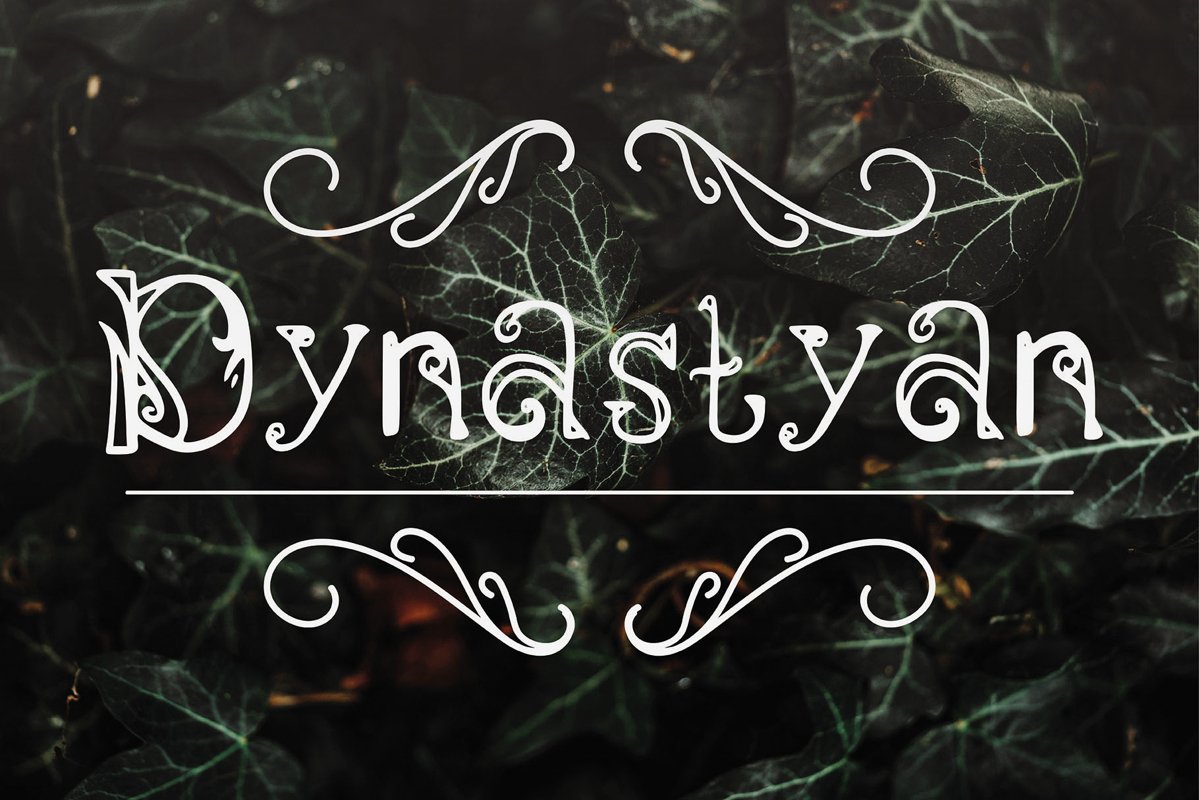
Dynastyan
Dynastyan Typeface is a vintage display type. It suitable for any vintage type needs and more Happy creating.Very suitable for you who do exploration